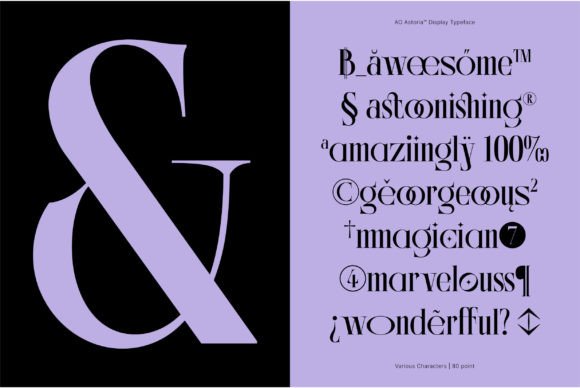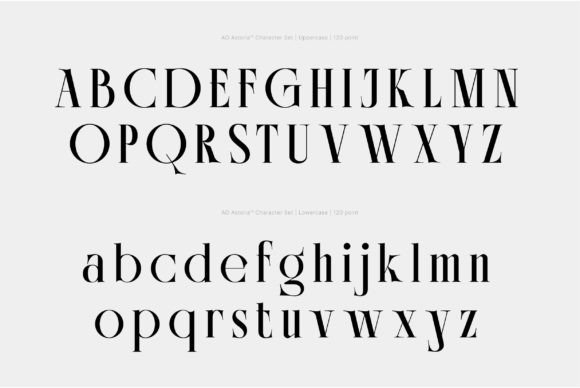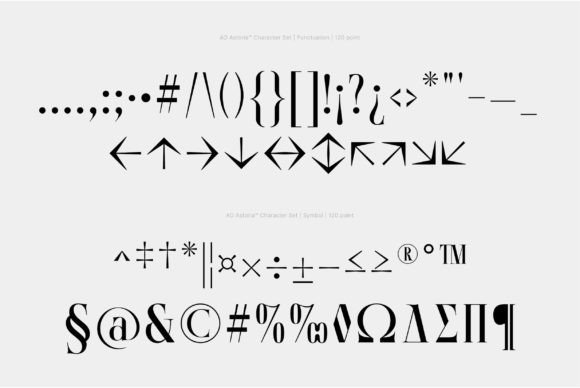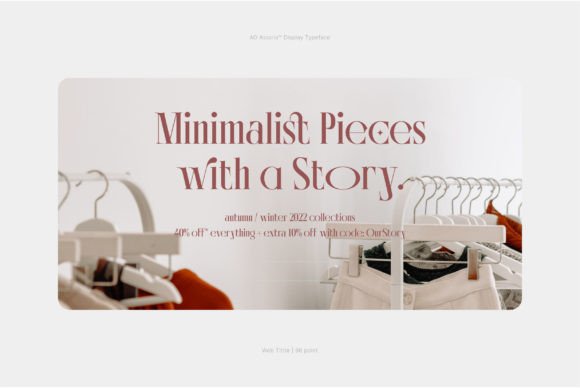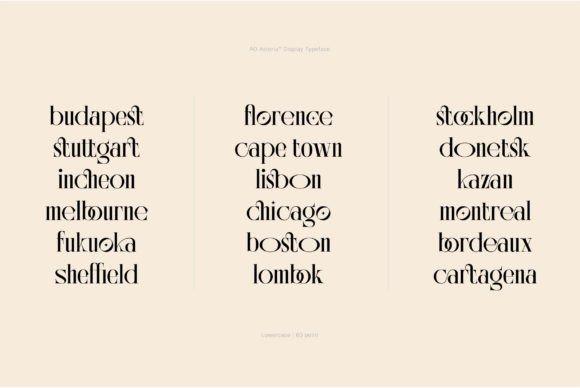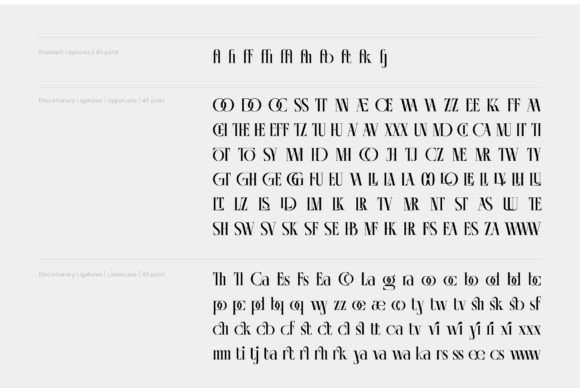
Discover the Timeless Elegance of the AO Astoria Font
As designers, we’ve all been there – staring at a blank canvas, searching for the perfect font to bring our vision to life. And then, it happens – a spark of inspiration strikes, and we stumble upon a font that perfectly captures the essence of our creative intent. For many, that moment is the introduction to the elegant and unique AO Astoria Font.
With its sophisticated and timeless serif design, the AO Astoria Font is the perfect choice for creating a classic and refined feel in your projects. Each character is crafted with intricate details and graceful curves, making it a great choice for logos, branding, and other high-end designs. As a designer, you’ll appreciate the versatility and sophistication that the Ao Astoria Font brings to your work, elevating your designs to new heights.
Ao Astoria Font Key Features
- Font Family: Ao Astoria is a serif font family designed for both print and digital media.
- Character Set: The font family includes a wide range of characters, including Latin, Greek, and Cyrillic scripts, as well as various punctuation marks and symbols.
- Size: The font family includes multiple weights, ranging from Thin (100) to Black (900), allowing for a wide range of design possibilities.
- Resolution: Designed for high-resolution displays, Ao Astoria looks great at resolutions up to 300 DPI.
- Unique Characteristics: The font’s distinctive serif design and subtle flair on the lowercase letters give it a classic, elegant feel that works well for both body text and headings.
Ao Astoria Font Review
Overall, I think the Ao Astoria Font has some great qualities that make it a solid choice for designers. ✨ The elegant and refined aesthetic it brings to a project is undeniable, and the subtle flair to the letterforms gives it a unique touch.
One of the things I appreciate most about Ao Astoria is its versatility. ✨ It can be used for a wide range of applications, from formal invitations to modern magazine titles, and its adaptability to different font sizes and styles is impressive. ✨ The font also includes a wide range of characters, including Latin, Greek, and Cyrillic scripts, making it a great choice for international projects.
Limits and Challenges
While Ao Astoria is a great font, it’s not without its limitations. ⚠️ One of the main concerns I have is the lack of bold and italic variations. This can make it difficult to create emphasis and hierarchy in a design, and may require additional fonts to be used in conjunction with Ao Astoria.
In conclusion, Ao Astoria is a beautiful and elegant font that is sure to add a touch of sophistication to any project. While it has some limitations, its versatility and refined aesthetic make it a solid choice for designers. Overall, I would give Ao Astoria 4 out of 5 stars.
- Refined and elegant aesthetic
- Unique letterform flair
- Wide range of applications
- Adaptable to different font sizes and styles
- Includes Latin, Greek, and Cyrillic scripts
- Lack of bold and italic variations
Ao Astoria Font Practical Application Guide
Tips for Getting the Most Out of Ao Astoria Font
Use Ao Astoria Font in conjunction with high-contrast colors to create a striking visual effect.
Experiment with different font sizes and styles to add emphasis and hierarchy to your design.
Ao Astoria Font is ideal for use in branding, marketing materials, and editorial design.
Use it to create attention-grabbing headlines, titles, and captions.
Alternatives to Ao Astoria Font for Designers
Great Vibes is a beautiful, elegant script font suitable for use in invitations, wedding stationery, and other formal events. It’s perfect for designers who want to create a sophisticated and romantic atmosphere.
Comparison to Ao Astoria Font: Great Vibes has a more fluid and organic feel, while Ao Astoria Font is more structured and modern. Great Vibes is ideal for projects that require a softer, more whimsical touch.